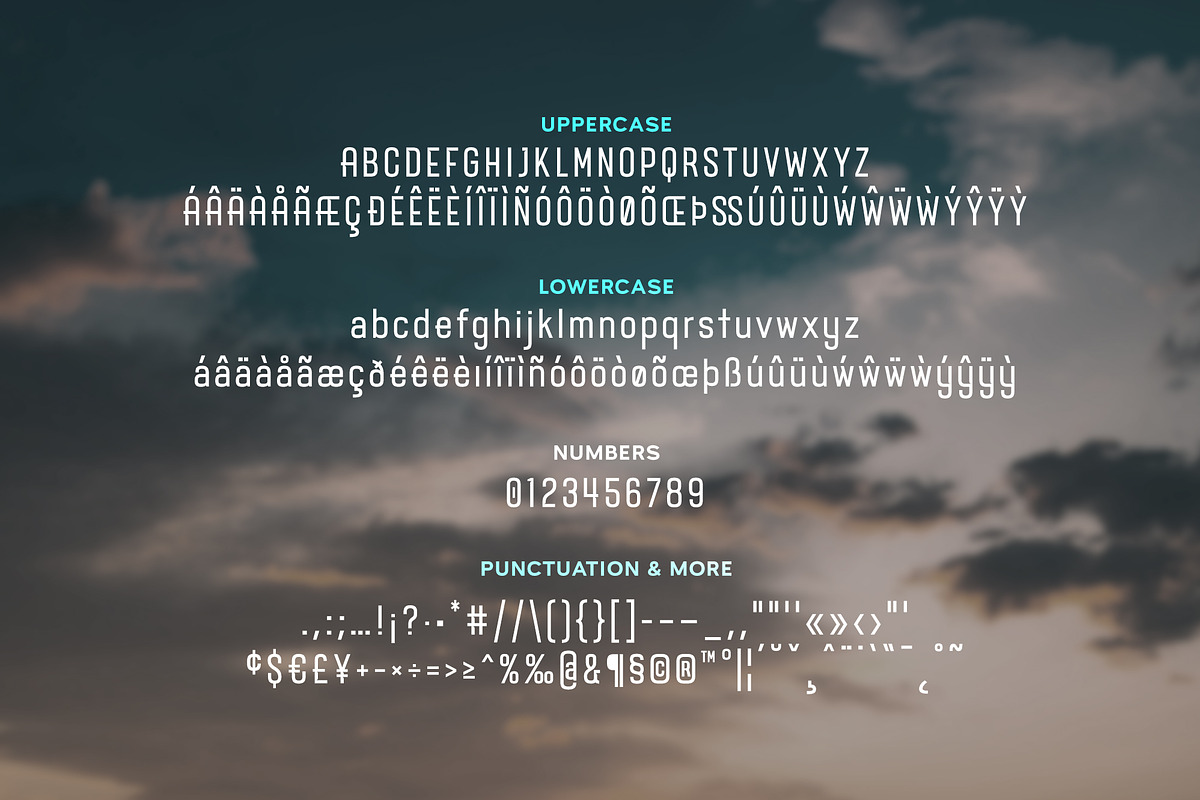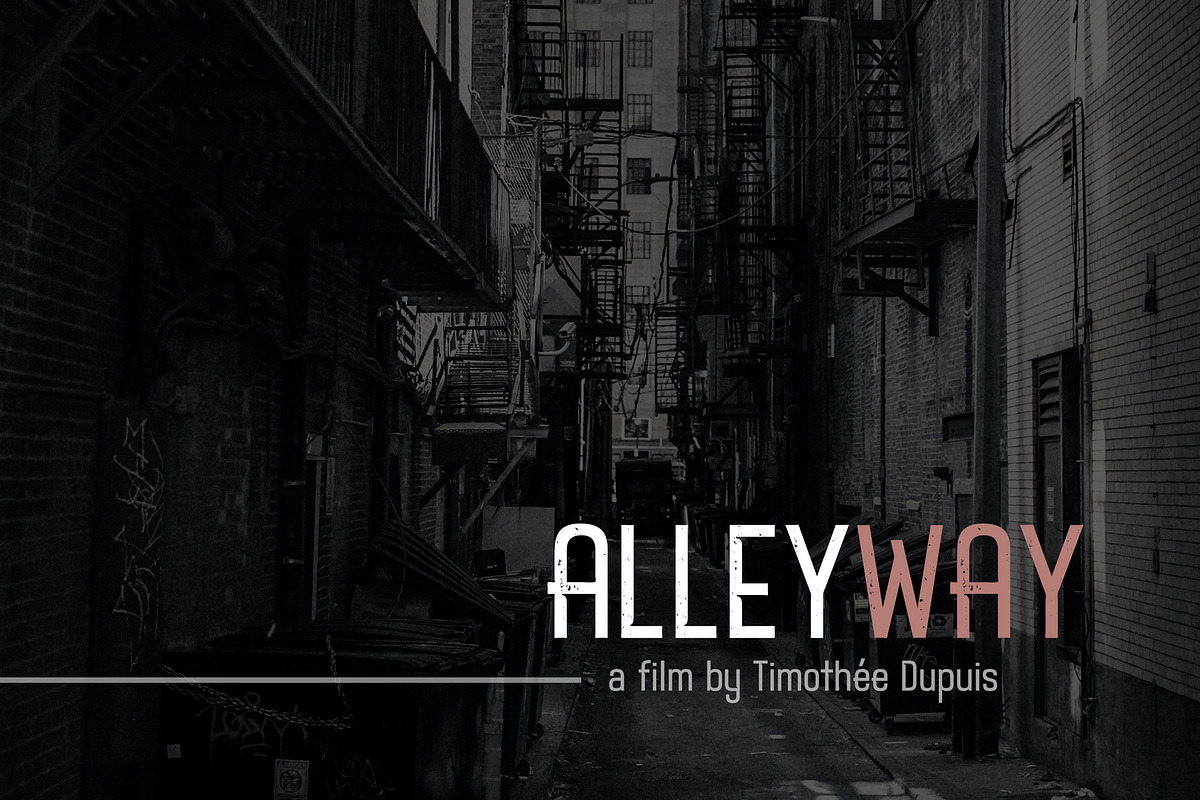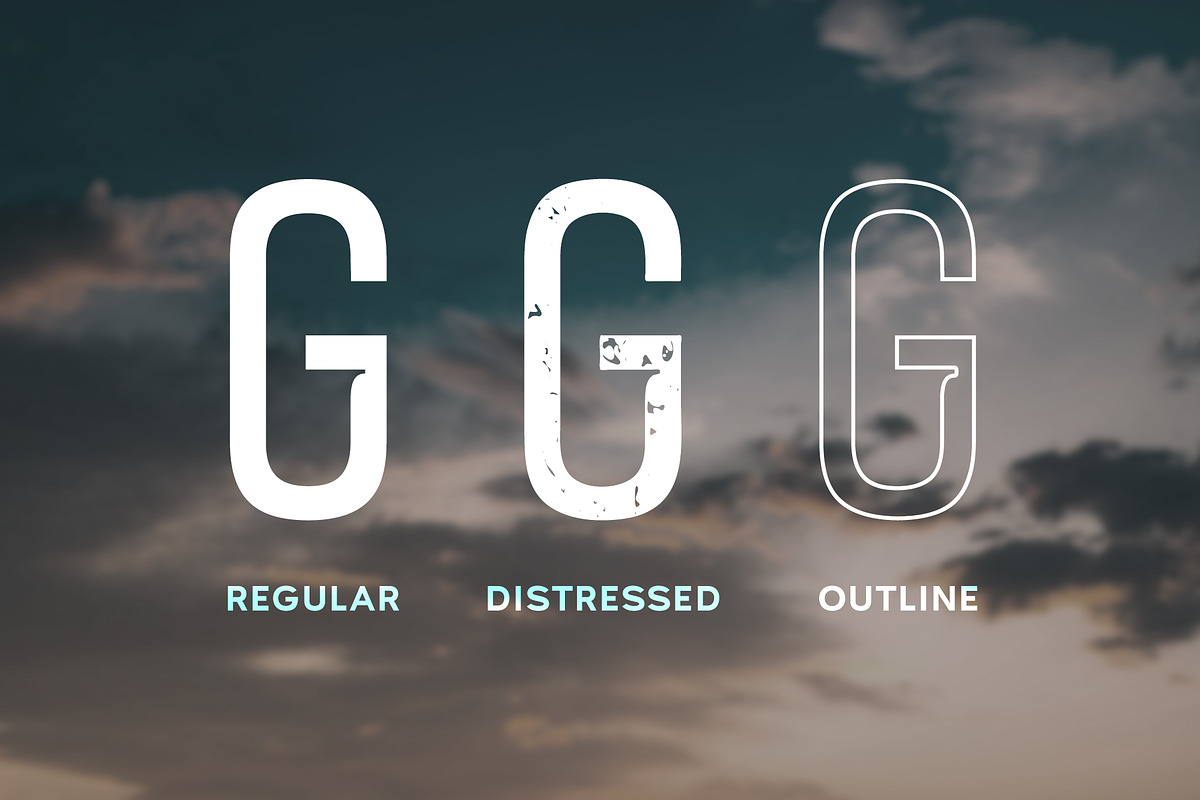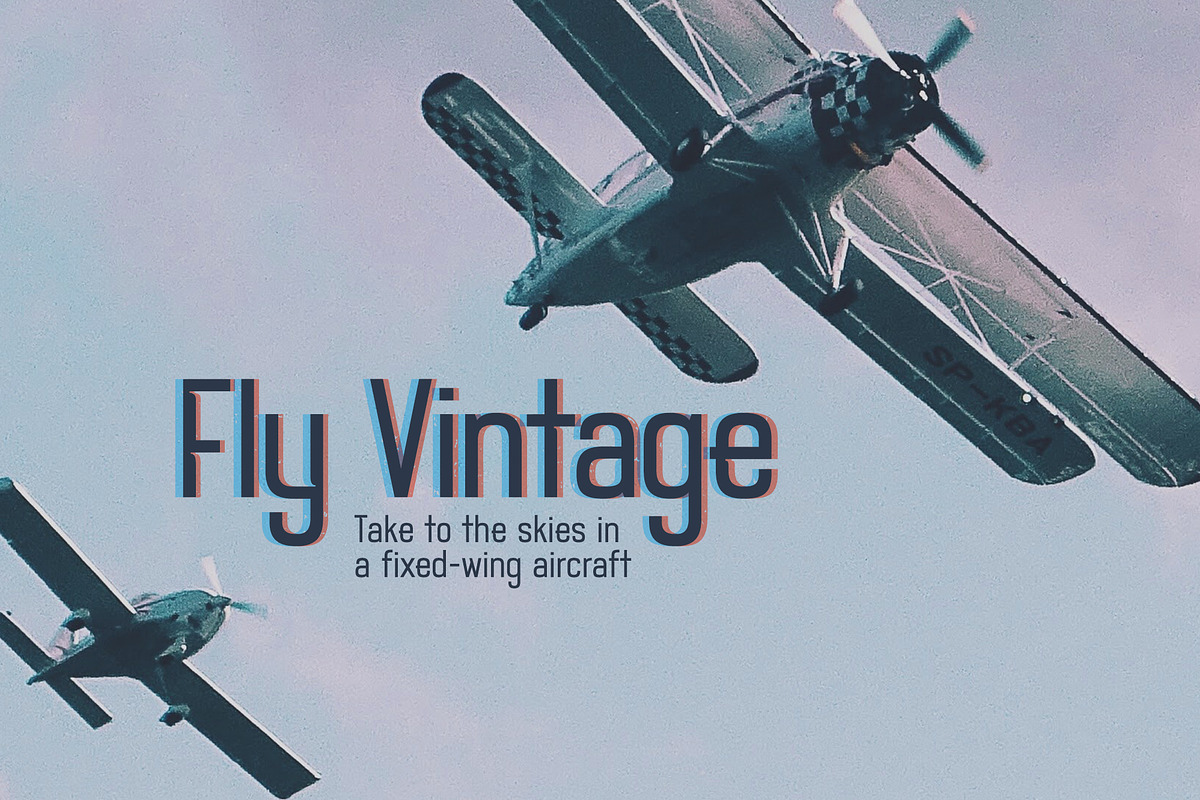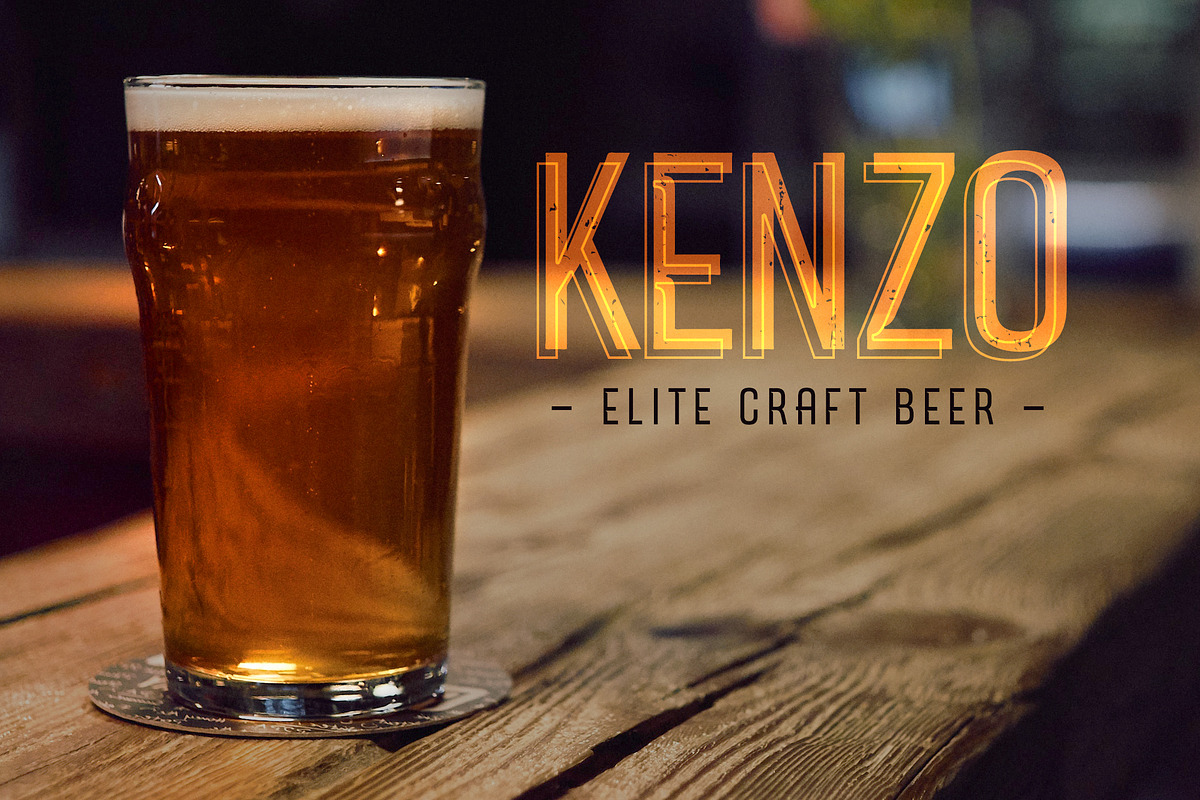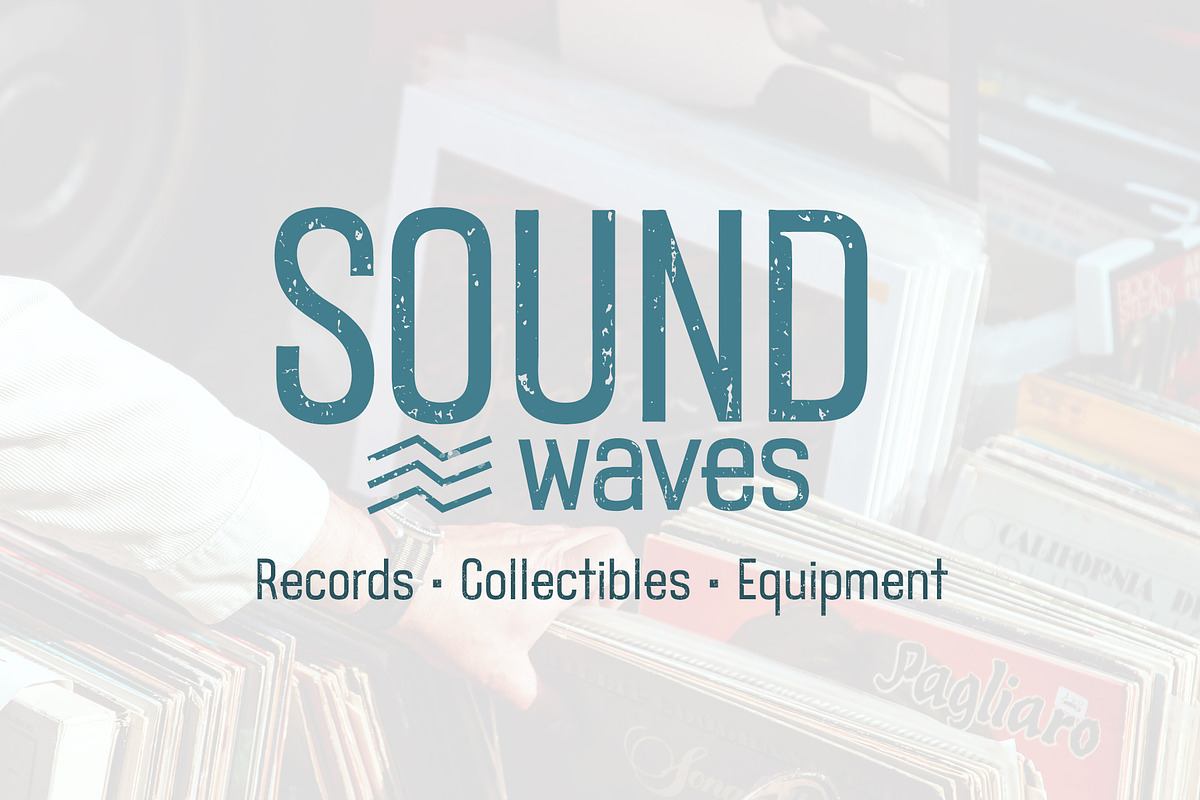
Airwings Army Retro Font + FREEBIES
Airwings is a retro narrow typeface available in Regular, Distressed, and Outline versions. Each version can be used on its own or combined and overlaid to create even more design options. Airwings is a versatile typeface that can be used in many ways for many different types of designs from album covers, to movie posters, clothing lines, restaurants, and more.
Combine Regular and Outline versions to create a retro 3-D look. Use the Distressed version to add a grungy feel to your design.
NOW INCLUDED: Apply a matching grunge effect to your graphics with the included vector grunge texture (provided in .ai, .eps, .jpg, and .png formats)!
- Airwings also comes with Western European characters built-in.
- Airwings Regular
- Airwings Distressed
- Airwings Outline